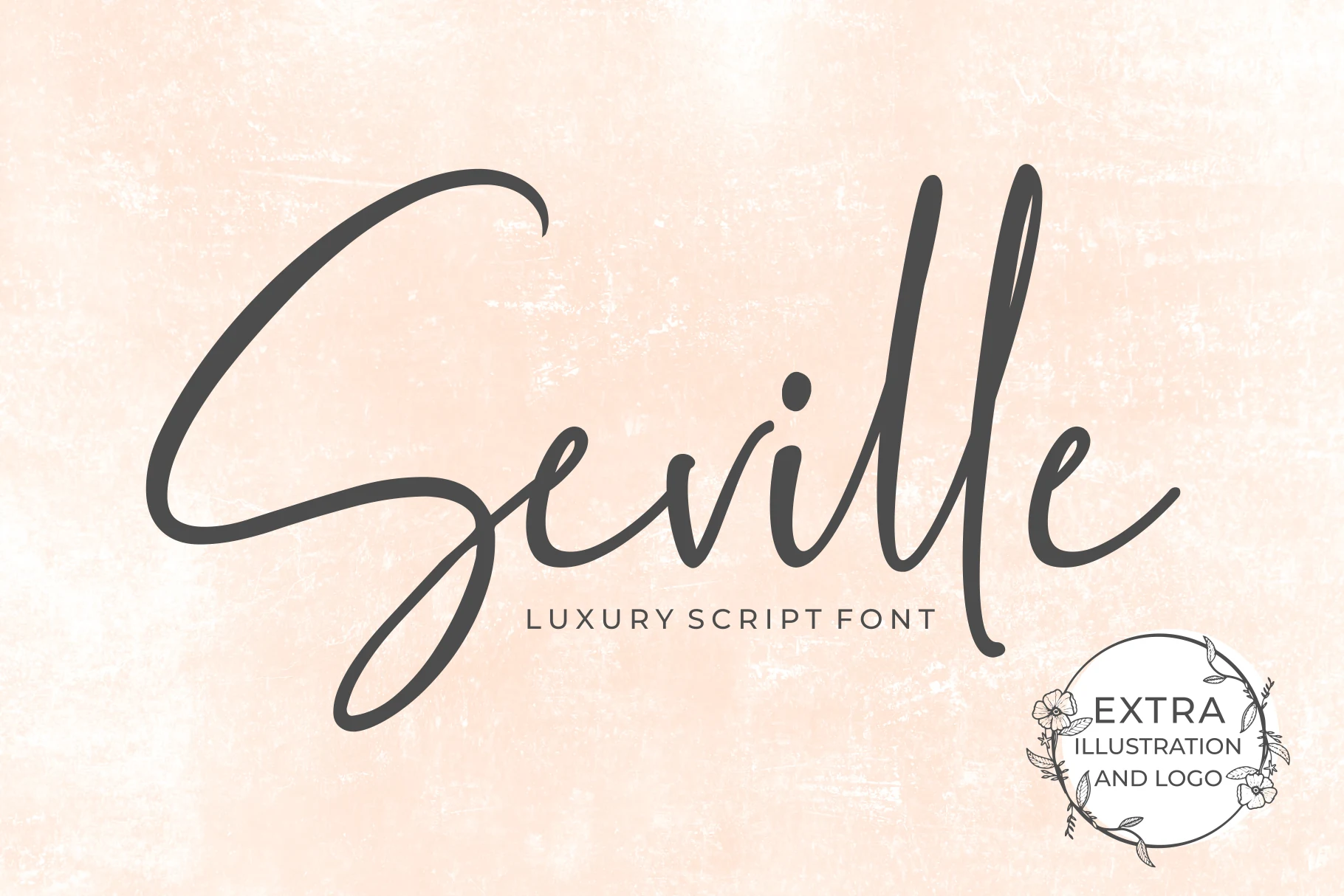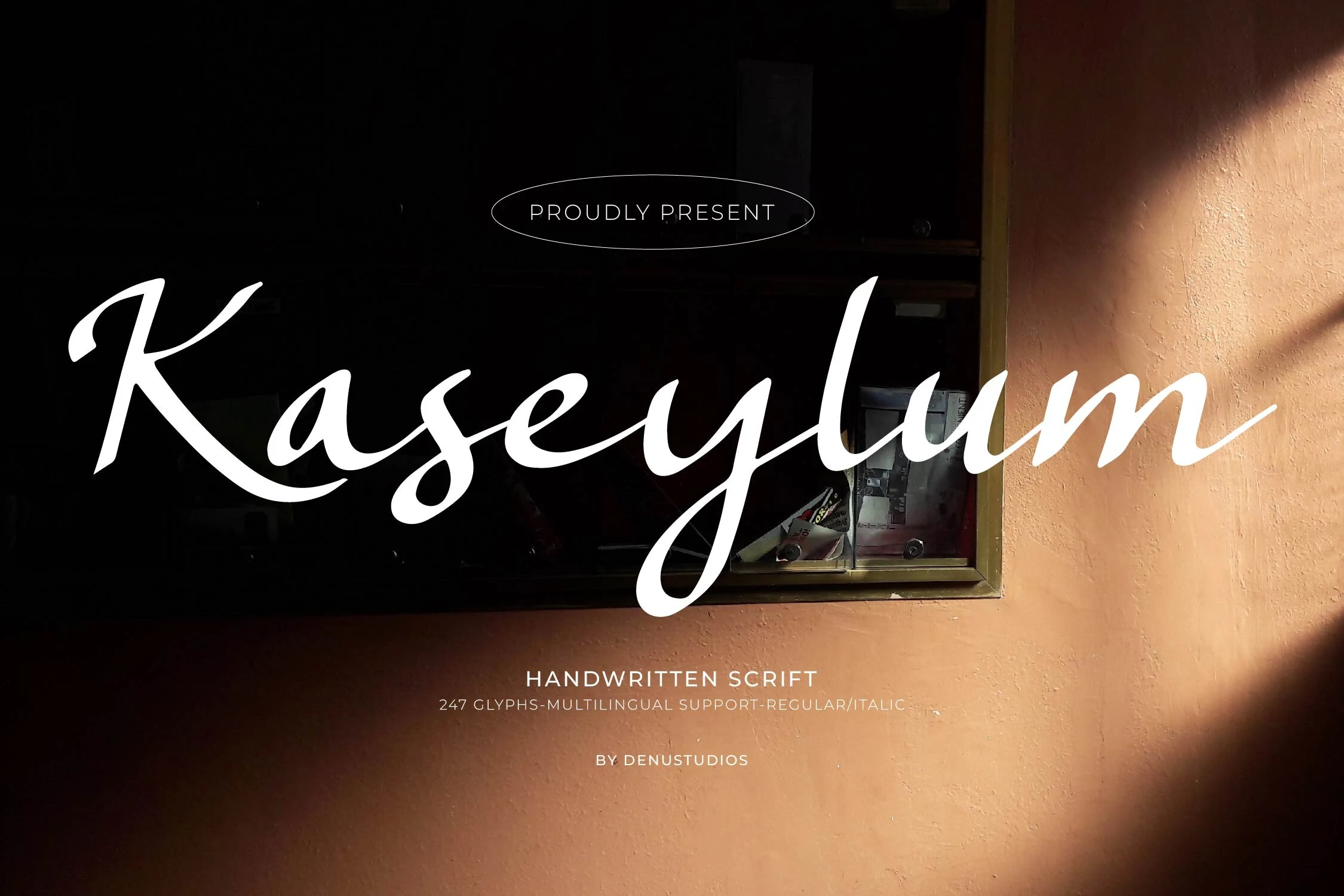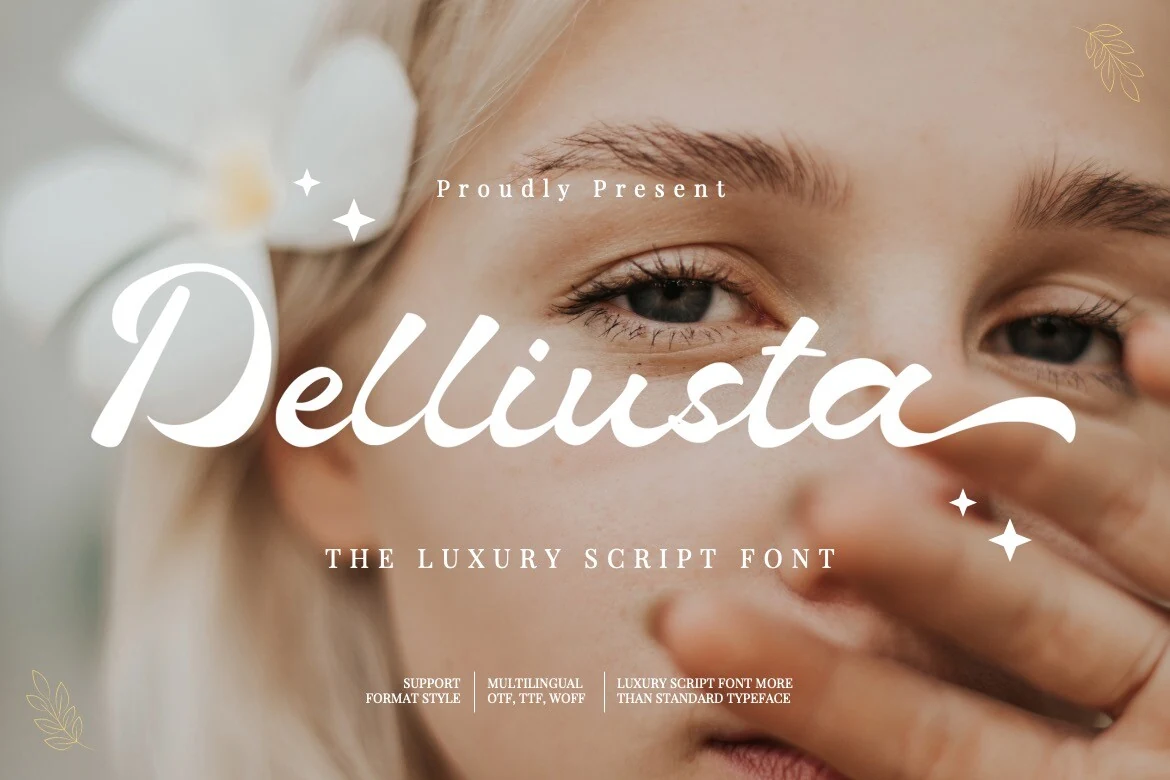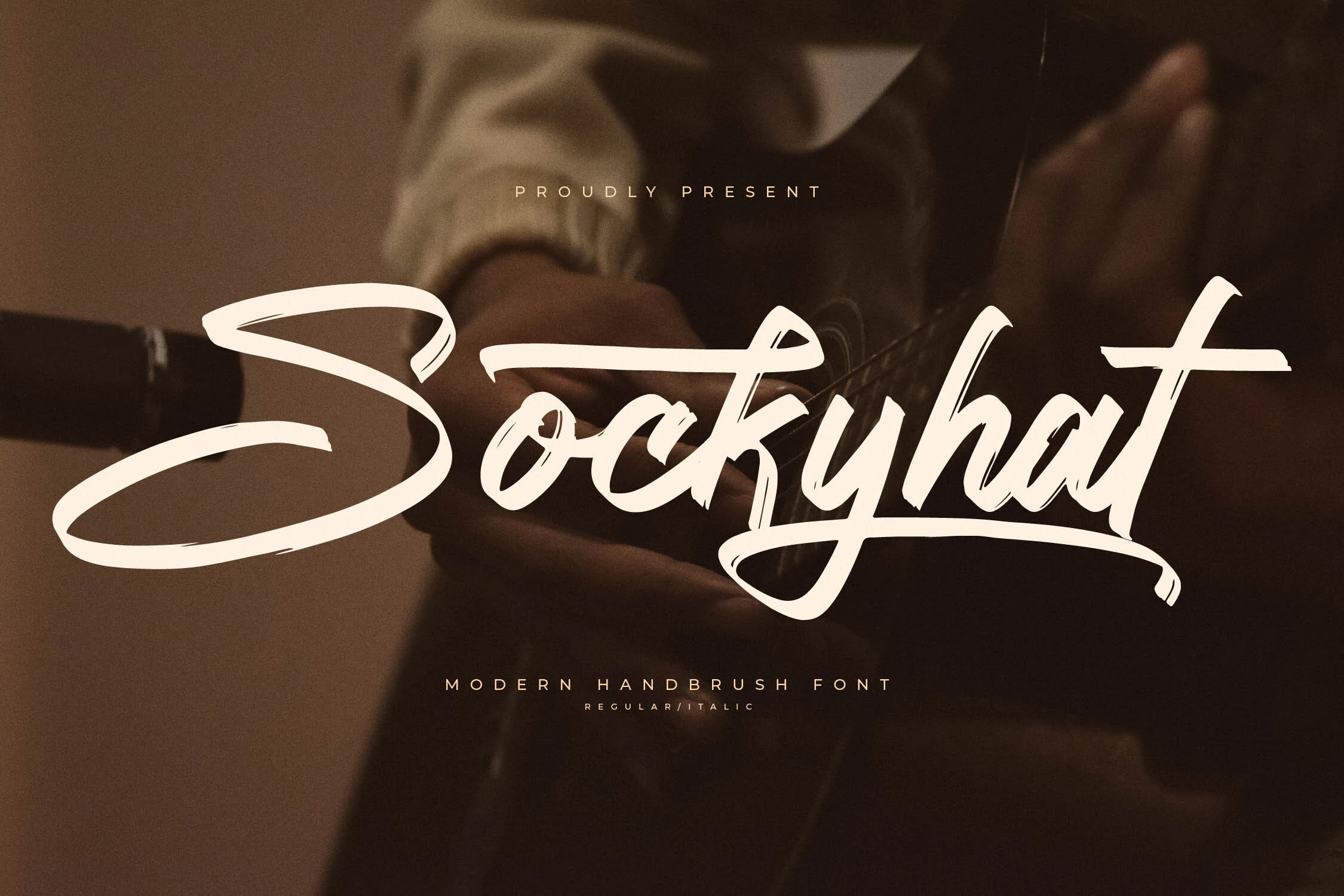
12 Luxury Script Fonts for Stunning Elegant Designs
Luxury Script Fonts are ideal for designers building elegant logos, invitations, packaging, and premium brand identities. This collection focuses on polished scripts with signature strokes, calligraphic curves, soft handwritten forms, and bold brush lettering for refined display typography.
Elegant Calligraphic Luxury Script Fonts
These refined scripts use polished curves, high contrast, and controlled swashes for luxury invitations, premium packaging, and formal brand marks.
Beatric Font
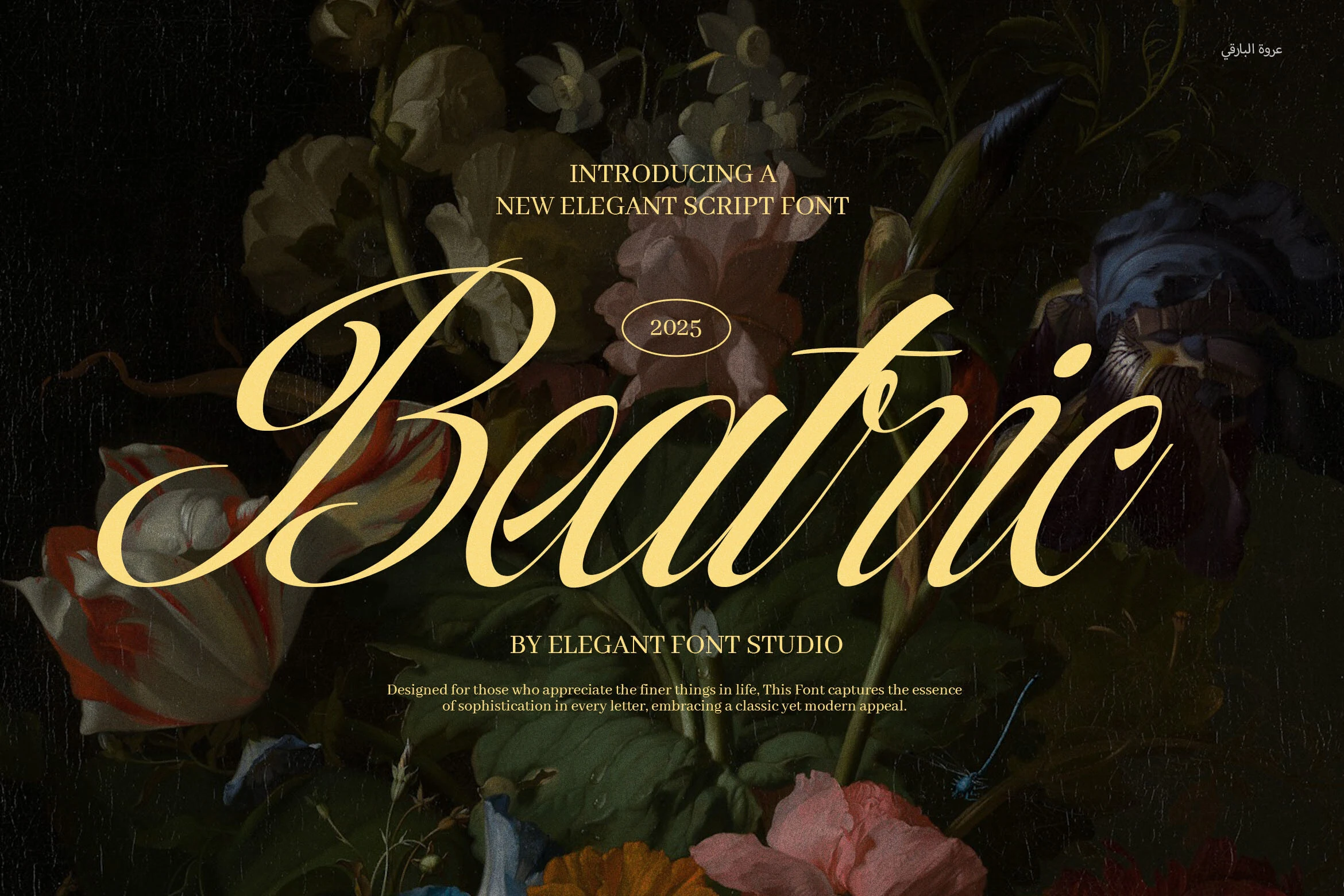
Best For: logos, invitations, fashion branding, luxury designs
Beatric Font has the kind of high-contrast movement that gives Luxury Script Fonts their dramatic polish. The capital B opens with a broad looping sweep, while the rest of the letters taper into fine hairlines and smooth, elongated curves. That mix of fullness and delicacy makes the script feel formal, refined, and clearly display-focused.
It shines in places where a single word or name needs to carry the composition, from branding to invitation design. The long entry and exit strokes need generous margins, and the ornate uppercase works best when paired with simpler supporting text so the calligraphic rhythm stays crisp instead of visually crowded.
Swadery Font
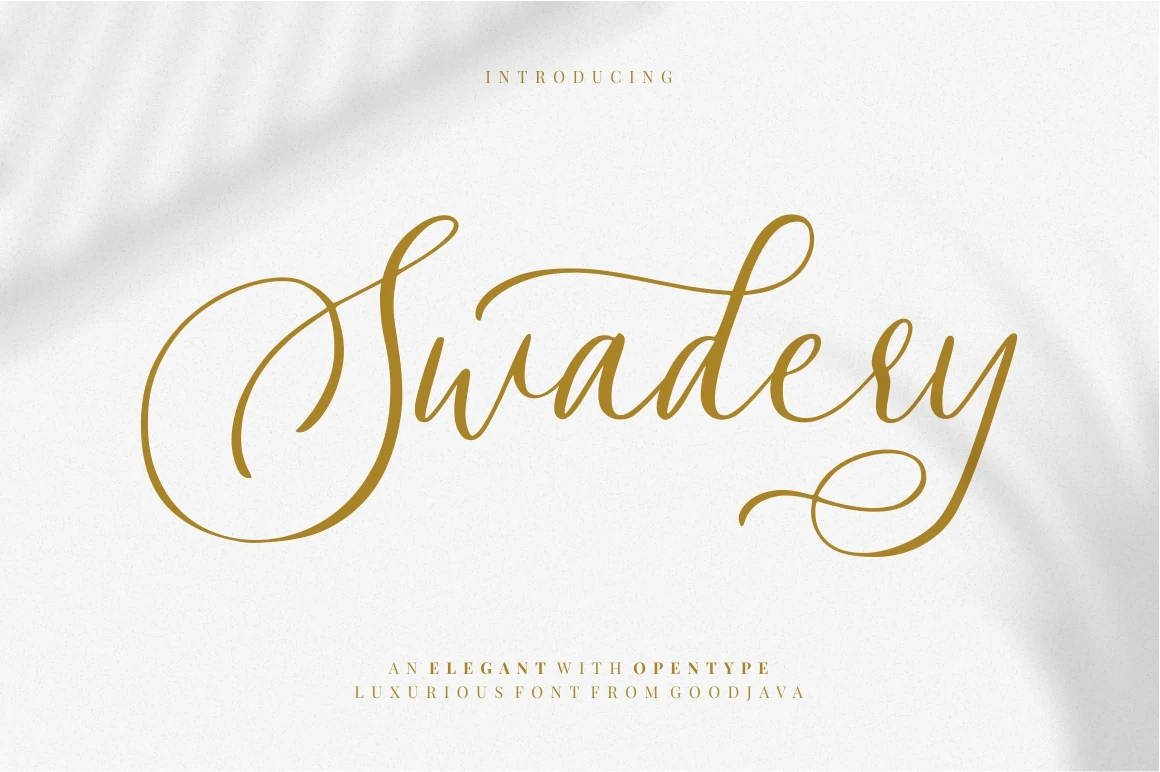
Best For: logos, invitations, social media graphics, product packaging
Swadery Font has a polished, airy rhythm that fits naturally into Luxury Script Fonts. The oversized capital S opens with a wide circular loop, while the rest of the word stays smooth and balanced with gentle curves and a graceful finishing swash on the y. It feels refined without becoming stiff, which gives the script a modern luxury tone.
That cleaner structure makes Swadery especially useful for logos, invitations, and polished social graphics where elegance needs to stay readable. It works best with short wording and generous margins, and pairing it with simple supporting text helps the decorative entry stroke and final flourish anchor the title hierarchy instead of competing with it.
Artemis Gothical Font
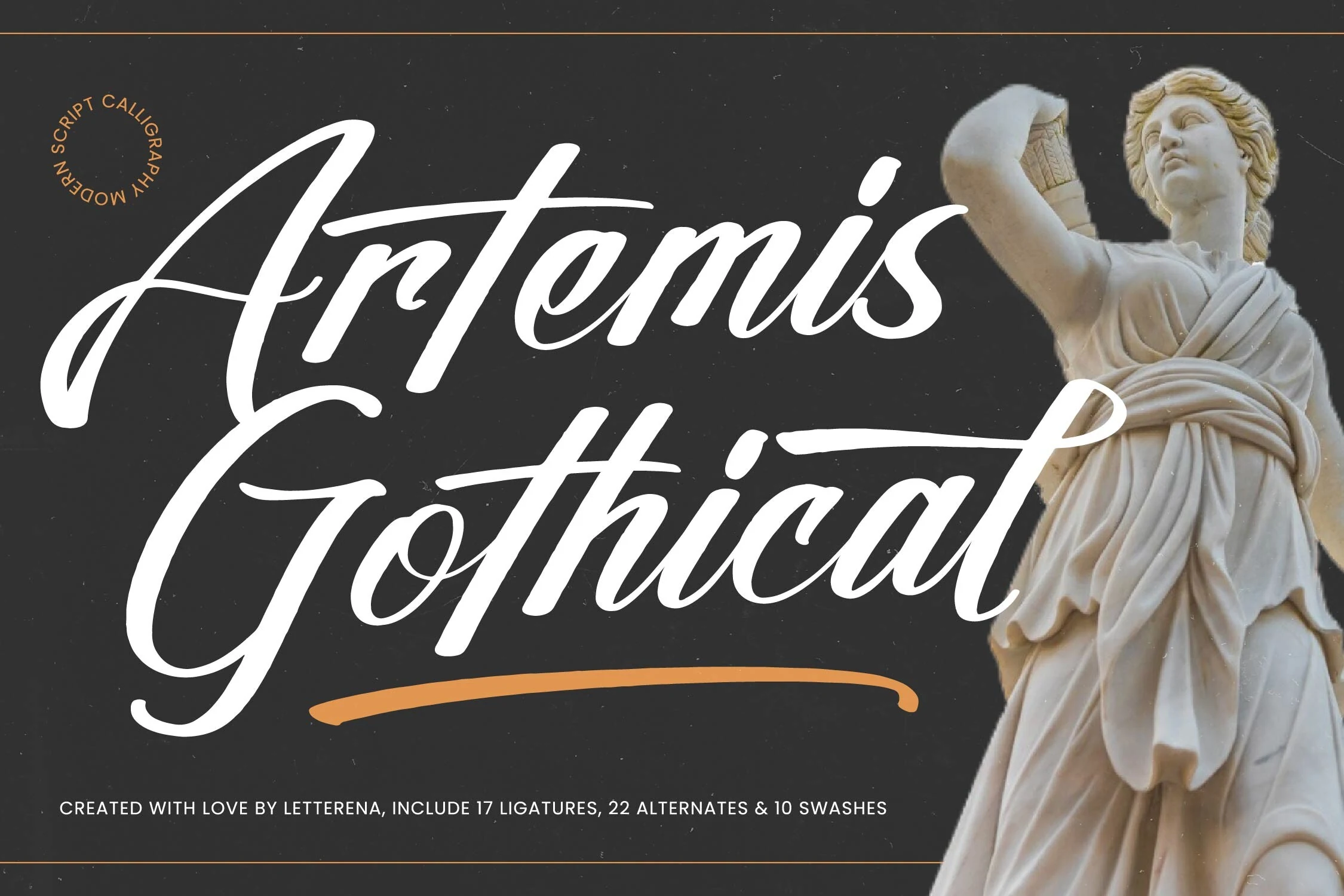
Best For: logos, invitations, posters, luxury designs
Artemis Gothical Font has a broad, high-impact script presence, with tall capitals, thick downstrokes, and long cross-strokes that give each word a carved, theatrical rhythm. It gives Luxury Script Fonts a bolder, more classical edge, while the smooth joins and sweeping terminals keep the lettering fluid instead of rigid.
The font is strongest in display settings where those extended swashes can stretch across the layout, especially for logos, invitations, and poster-style titles. Give it extra side margins and keep the supporting copy compact, so the dramatic strokes frame the composition cleanly rather than crowding nearby text.
Signature & Editorial Luxury Script Fonts
These fonts lean into long strokes, airy spacing, and fashion-style signatures for logos, magazine covers, personal brands, and upscale labels.
Pharellia Redusha Font
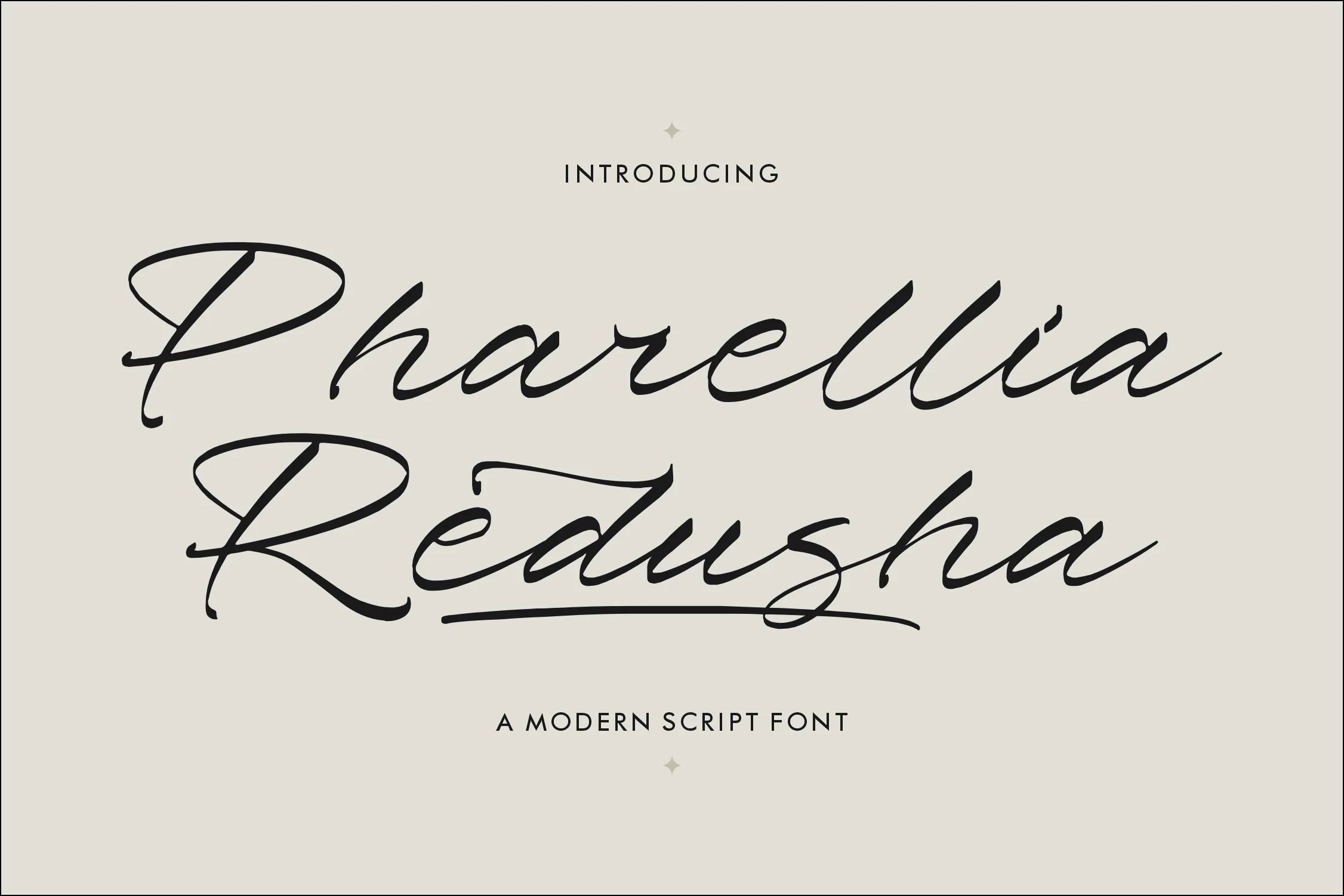
Best For: logos, fashion branding, luxury designs, magazine covers
Pharellia Redusha Font sits on the sharper side of Luxury Script Fonts, with long horizontal entry strokes, looped capitals, slim joins, and angled lowercase forms that move quickly across the line. The letters feel closer to a fashion signature than a soft romantic script, which gives names and titles a leaner, more editorial presence.
Use it where the wording can dominate: logos, fashion labels, magazine styling, and book or movie title designs. Its extended swashes need generous side margins, and slightly tighter word spacing can help the underline-like strokes feel deliberate instead of drifting away from the composition.
Laurindra Font
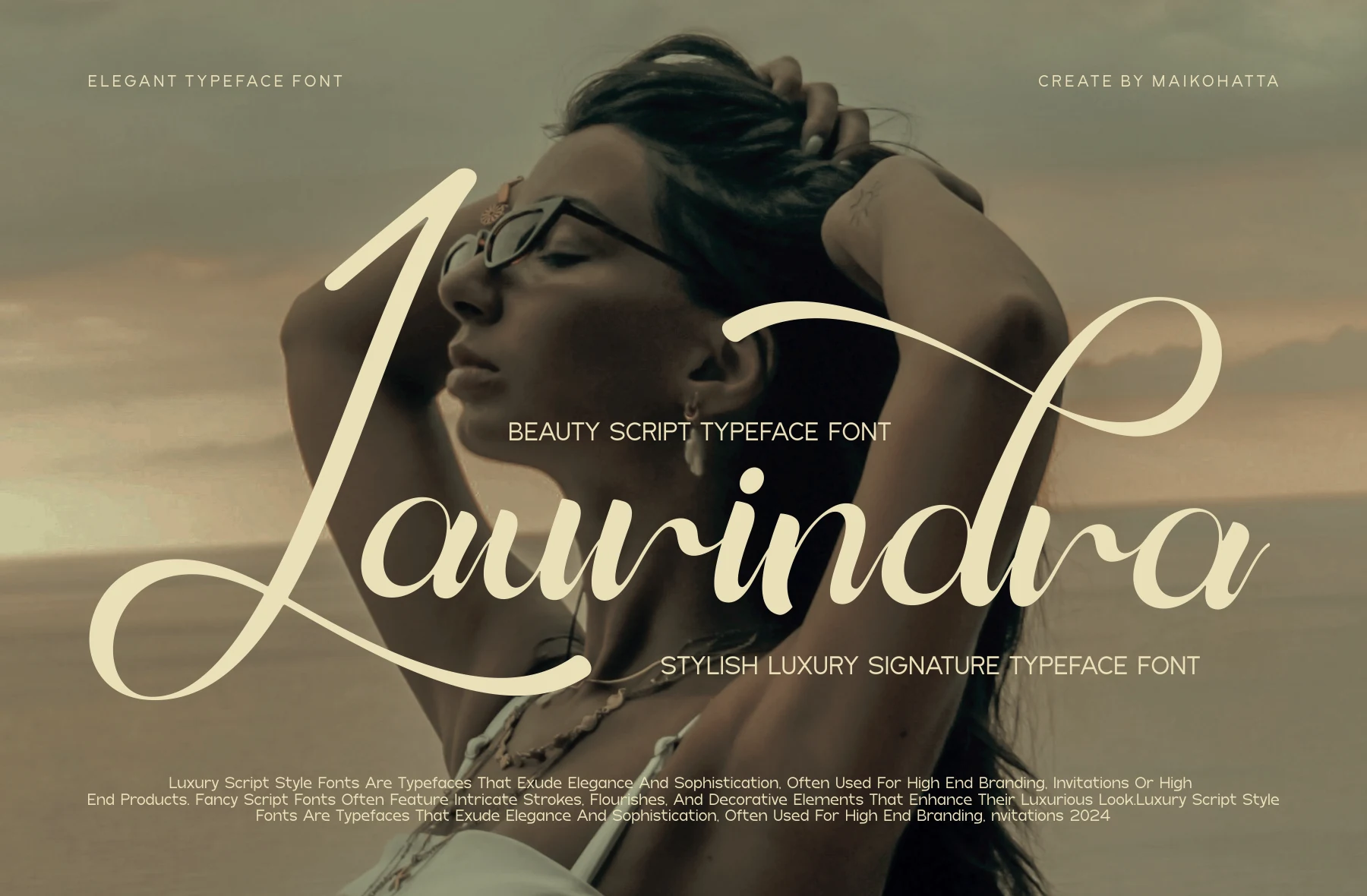
Best For: logos, personal branding, fashion branding, luxury designs
Laurindra Font has a poised signature look, with a dramatic opening capital, long looping swashes, and smooth connected strokes that stretch elegantly across the page. Its rhythm feels polished rather than delicate, which gives Luxury Script Fonts a cleaner, more contemporary edge.
The letterforms stay readable for a script, so Laurindra works well when you want statement typography without losing clarity. It suits logos and branding especially well, and the broad flourishes benefit from generous spacing around the wordmark so the curves can frame the composition instead of crowding it.
Gilberons Knighten Font
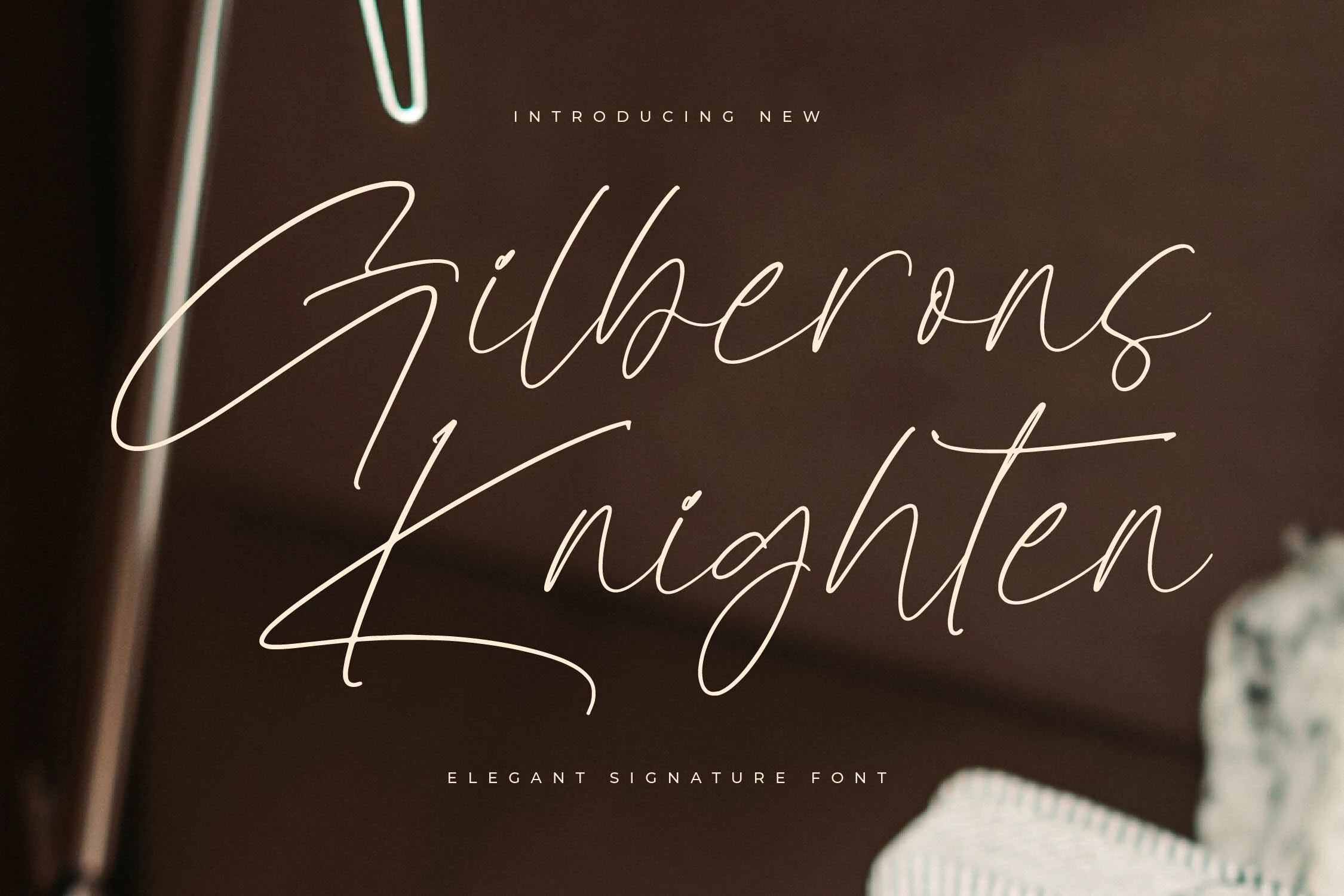
Best For: logos, personal branding, invitations, fashion branding
Gilberons Knighten Font leans into the lightest side of Luxury Script Fonts, with slim monoline strokes, airy connections, and oversized capitals that sweep into long, elegant loops. The tall G and K give it a true signature feel, while the open lowercase keeps the script refined instead of fussy.
This is the kind of lettering that works best when the name or phrase can breathe. For logos, invitations, and personal branding, leave generous margins and avoid crowding it with tight line breaks; the extended capitals and long finishing strokes need space to frame the wordmark cleanly.
That makes it a strong pick for posters, logos, and merch where short wording needs instant impact. The long crossbars and final swash work best when they have room to stretch, so keep supporting text compact and let the title sit as the main visual element.
Conclusion
Choose signature scripts for fashion-style logos, calligraphic scripts for formal invitations and packaging, soft handwritten styles for warmer brands, and bold brush scripts when the design needs stronger display impact.